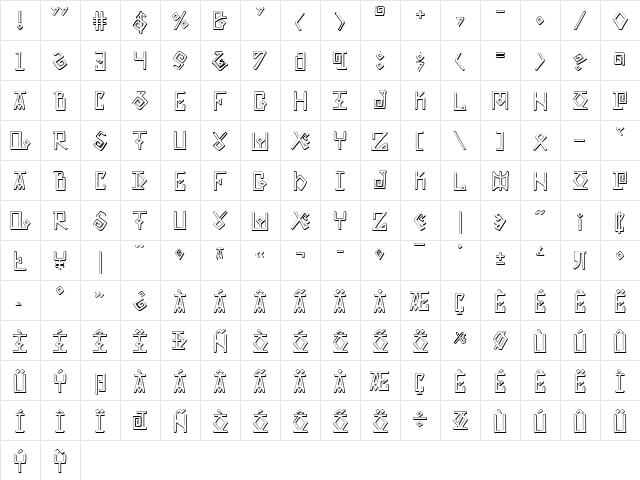
Elder Magic Shadow Regular
Design Context for Elder Magic Shadow Typeface
Elder Magic Shadow brings ornamental detail and strong personality to headlines and identities, where visual impact matters more than quiet functionality.
Font Pairing: Pair with a clean neutral sans-serif for body copy to let Elder Magic Shadow's character lead without overwhelming the composition.
Pro Tip: Use Elder Magic Shadow exclusively at display sizes — it was designed to be seen, not read at length. Let a neutral companion handle body copy.